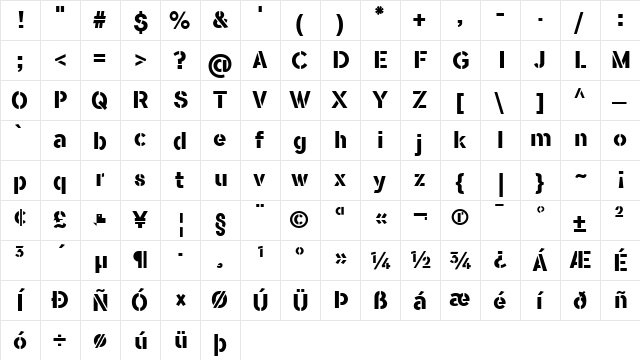
Flamante Stencil Bold
| Foundry | deFharo |
| Designer | Fernando Haro |
Design Context for Flamante Stencil Typeface
Flamante Stencil has the rough pragmatism of spray-painted stencil signage, adding a raw, street-level authenticity to designs. The heavy weight commands attention and anchors typographic hierarchies.
Ideal for industrial branding, streetwear, military-adjacent aesthetics, and urban signage projects.
Pro Tip: Pair Flamante Stencil with raw, utilitarian design elements — exposed concrete textures, flat colour, and minimal ornamentation suit it well.